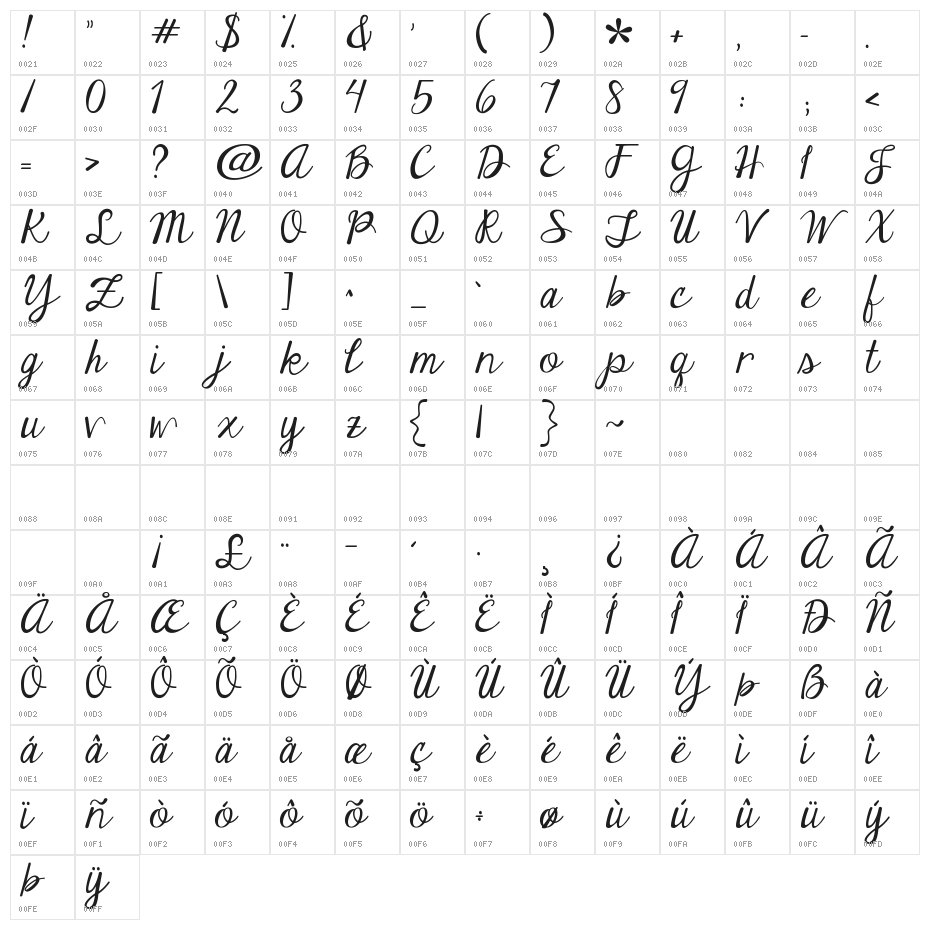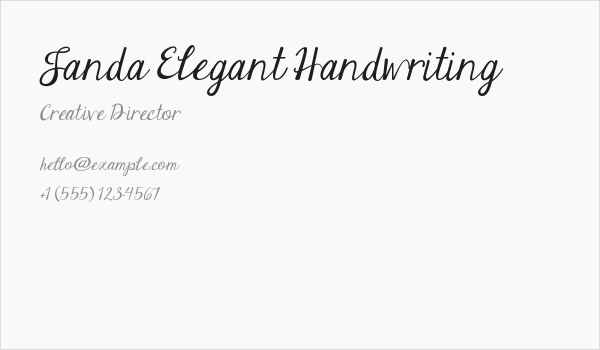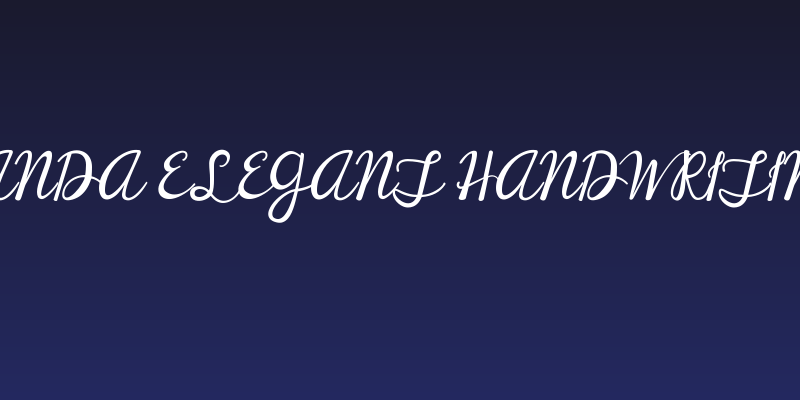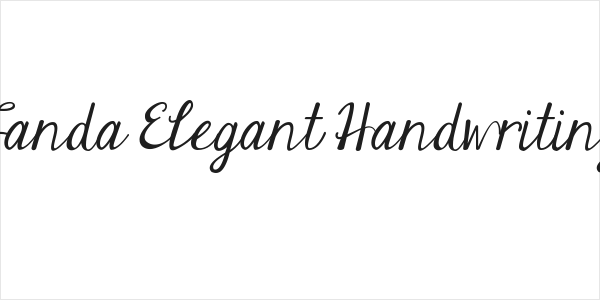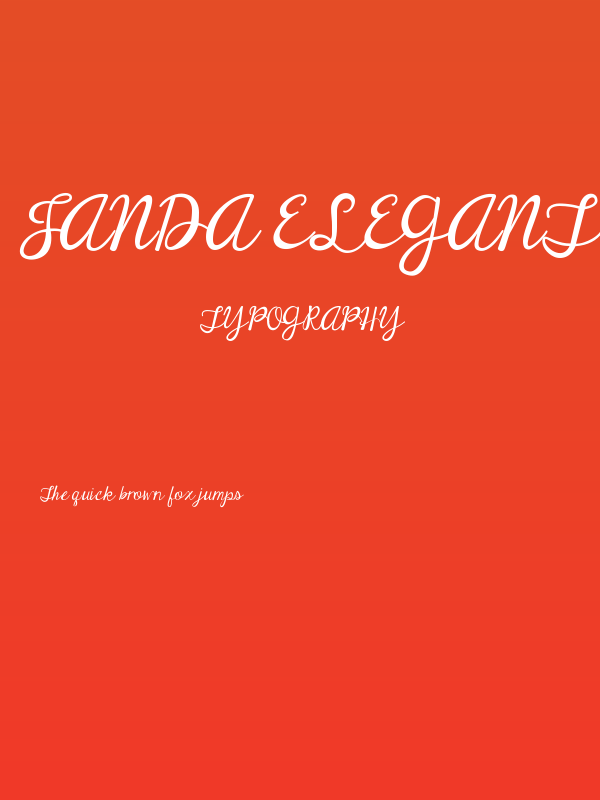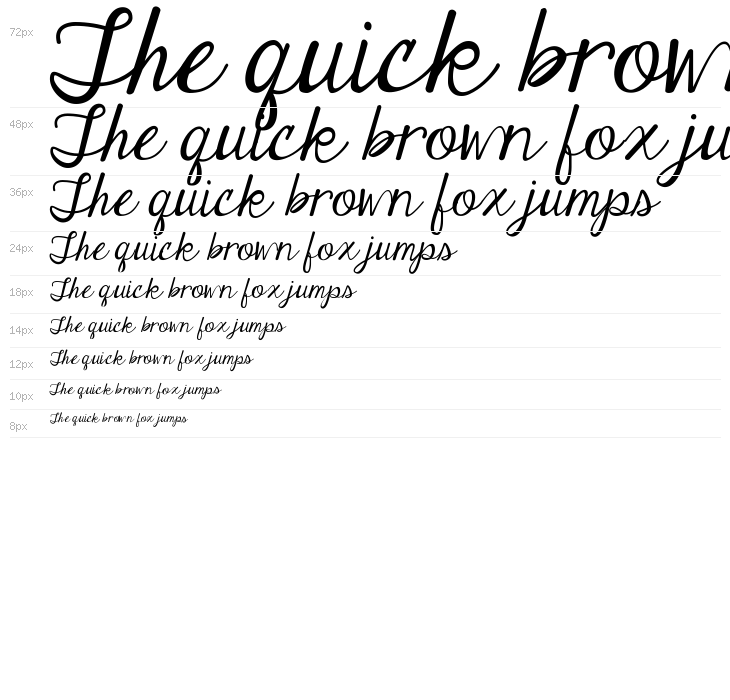
Janda Elegant Handwriting Font
Janda Elegant Handwriting Description
This font exudes a graceful and flowing style, reminiscent of elegant handwriting. The characters are crafted with smooth, continuous strokes that convey a sense of fluidity and sophistication. The uppercase letters are bold and slightly slanted, adding a dynamic touch, while the lowercase letters maintain a consistent rhythm, enhancing readability. The numerals are well-balanced, complementing the overall aesthetic. Special characters are thoughtfully designed to blend seamlessly with the alphabet, ensuring versatility in various applications. This font is perfect for projects that require a personal and refined touch.
| Use Case | Logos, Invitations, Personal branding |
| Proposed Projects | Ideal for wedding invitations, personal branding, elegant stationery, and artistic projects. |